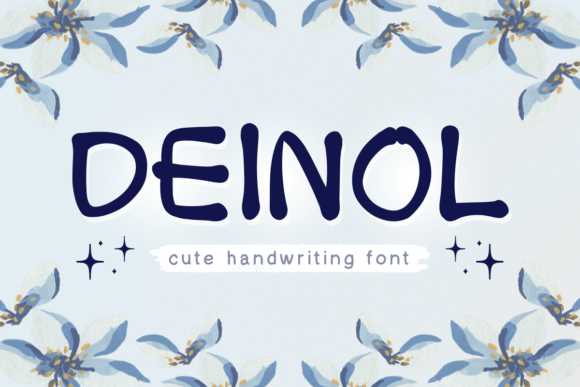
**Introducing Deinol Font: The Perfect Touch of Elegance for Your Creative Projects**
Step into the realm of captivating typography with Deinol Font, a script font that exudes charm and personality. Its handwritten style, characterized by simple, cool, and cute strokes, adds a touch of playfulness and warmth to your designs. Crafted with meticulous attention to detail by Khim08Studio, Deinol is a versatile font that lends itself effortlessly to a wide range of creative endeavors.
**Unleash Your Creativity with Endless Possibilities**
With Deinol Font at your fingertips, the possibilities are limitless. Let your imagination soar as you create stunning designs that capture the hearts of your audience. From whimsical crafts for kids to heartfelt greeting cards, Deinol's charming personality shines through, adding a touch of magic to every project.
**Transform Your Designs into Eye-Catching Masterpieces**
Elevate your designs to new heights with Deinol Font. Its unique handwritten style makes your text the centerpiece of your creations, demanding attention and leaving a lasting impression. Whether you're crafting logos, social media posts, or website headers, Deinol's ability to transform ordinary text into captivating works of art is truly remarkable.
**Experience the Beauty of Simplicity**
Deinol Font's simplicity is its superpower. Its clean lines and effortless flow create a sense of harmony and balance in your designs. This minimalist approach allows your message to take center stage, ensuring that your words leave an impact without being overshadowed by unnecessary ornamentation.
**Make a Statement with Deinol Font**
In a world saturated with visual noise, Deinol Font stands out as a breath of fresh air. Its understated elegance and timeless appeal make it the perfect choice for those seeking to create designs that speak volumes without saying a word. Whether you're a seasoned designer or just starting your creative journey, Deinol Font is your key to unlocking a world of captivating typography.